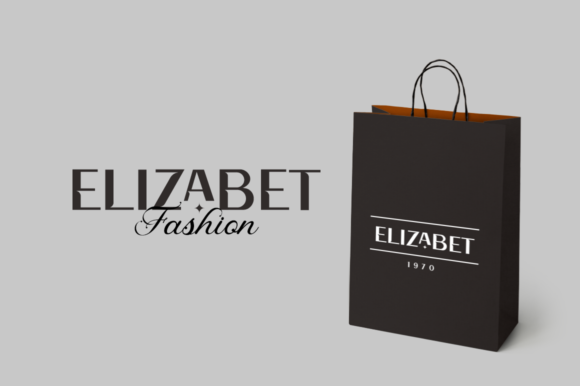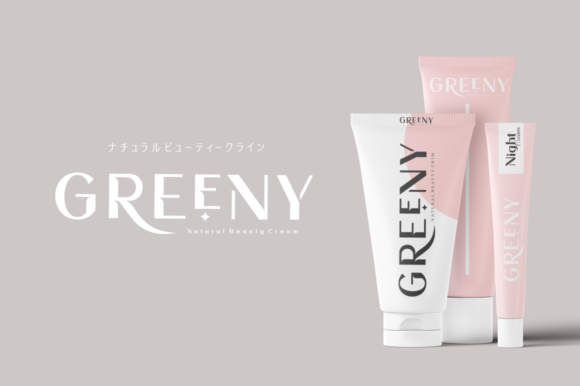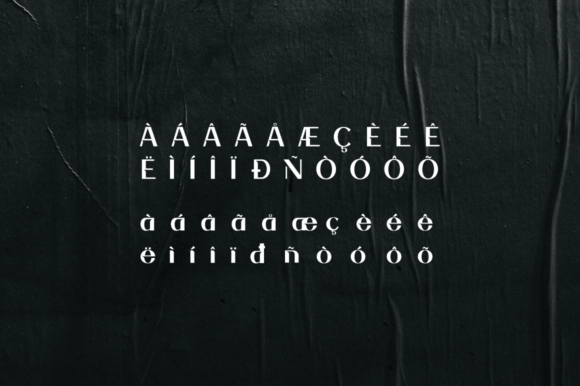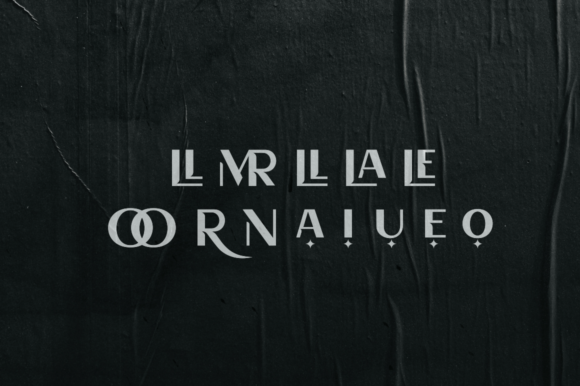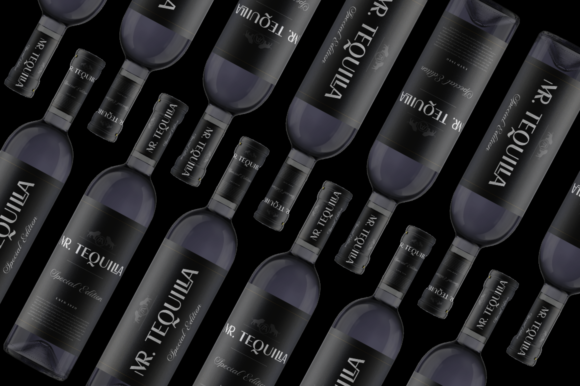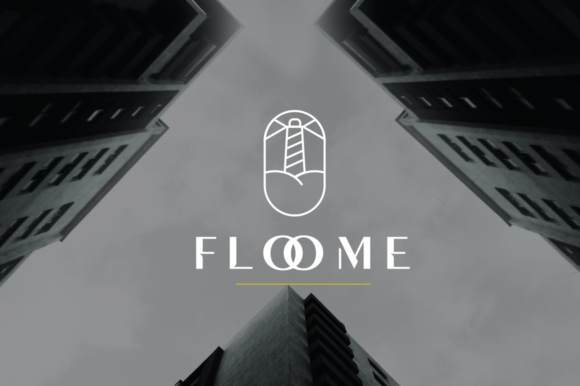
Introducing De Tooreit: The Modern Sans Serif Font for Creative Designs
In the world of typography, fonts play a crucial role in conveying messages, expressing emotions, and creating visual identities. For designers, crafters, and creative enthusiasts, finding the perfect font can be a daunting task. However, if you’re looking for a modern and cool sans serif font that can elevate your designs, look no further than De Tooreit.
What is De Tooreit?
De Tooreit is a sleek and contemporary sans serif font designed to make a statement. Its clean lines, precise curves, and geometric shapes make it perfect for a wide range of design applications. Whether you’re working on branding and logo designs, magazine layouts, headlines, posters, packaging, cards, or wedding invitations, De Tooreit is the ideal choice.
Key Features of De Tooreit
- Modern and Cool Design: De Tooreit boasts a fresh and trendy design that’s sure to grab attention. Its sans serif style gives it a clean and minimalist look that’s perfect for modern designs.
- Versatile: This font is incredibly versatile and can be used for various design projects, from digital to print.
- Easy to Read: De Tooreit’s clear and legible design makes it easy to read, even at small font sizes.
- Highly Customizable: With De Tooreit, you can experiment with different font sizes, colors, and styles to create unique and personalized designs.
De Tooreit is a dream come true for designers and crafters who want to create stunning visual content. Its modern design and versatility make it an excellent choice for:
- Branding and Logo Designs: Create a lasting impression with De Tooreit’s sleek and professional design.
- Magazine Designs: Add a touch of modernity to your magazine layouts with De Tooreit’s clean and elegant design.
- Headlines and Posters: Make a statement with De Tooreit’s bold and attention-grabbing design.
- Packaging and Labels: Give your products a modern and stylish look with De Tooreit’s versatile design.
- Cards and Wedding Invitations: Add a touch of elegance and sophistication to your cards and wedding invitations with De Tooreit’s beautiful design.
Why Choose De Tooreit?
With so many fonts available, why choose De Tooreit? Here are just a few reasons:
- Unique Design: De Tooreit’s modern design sets it apart from other fonts, making it perfect for designers who want to create something new and exciting.
- Easy to Use: De Tooreit is incredibly easy to use, even for those who are new to design.
- High-Quality: De Tooreit is a high-quality font that’s designed to deliver exceptional results.
In conclusion, De Tooreit is an exceptional sans serif font that’s perfect for designers, crafters, and creative enthusiasts. Its modern design, versatility, and ease of use make it an excellent choice for a wide range of design applications. Whether you’re working on branding and logo designs, magazine layouts, headlines, posters, packaging, cards, or wedding invitations, De Tooreit is the ideal font to elevate your designs and take them to the next level.